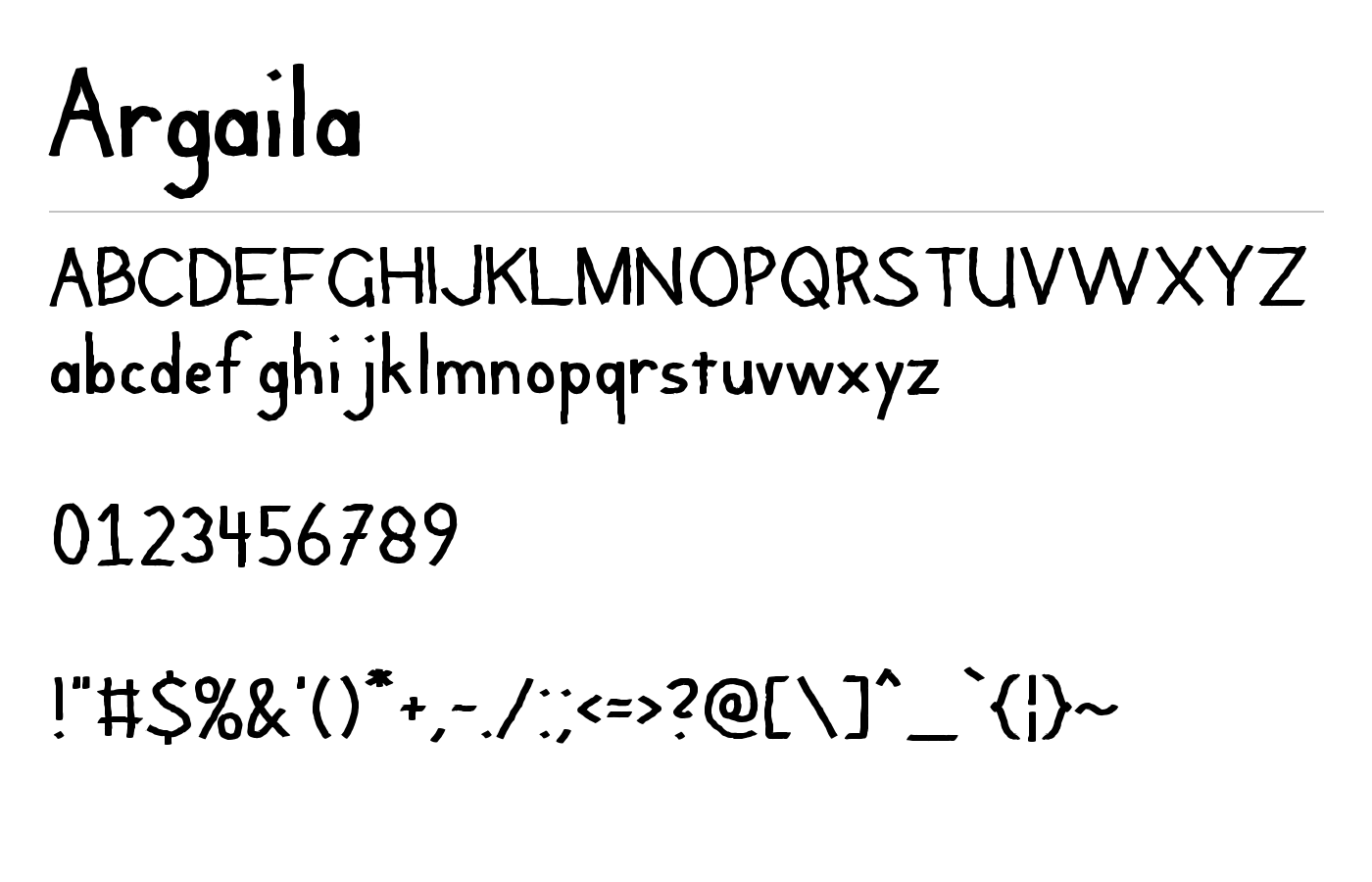
Argaila is a playful, hand-drawn sans serif font that features irregular lines and uneven strokes, giving it a casual and approachable feel. Its light to medium weight and distinctive letter shapes make it perfect for creative projects, children’s materials, or informal branding where personality and warmth are key. This font works best in headlines, logos, and packaging that seek a friendly and unique touch.
Argaila Font
About Argaila Font